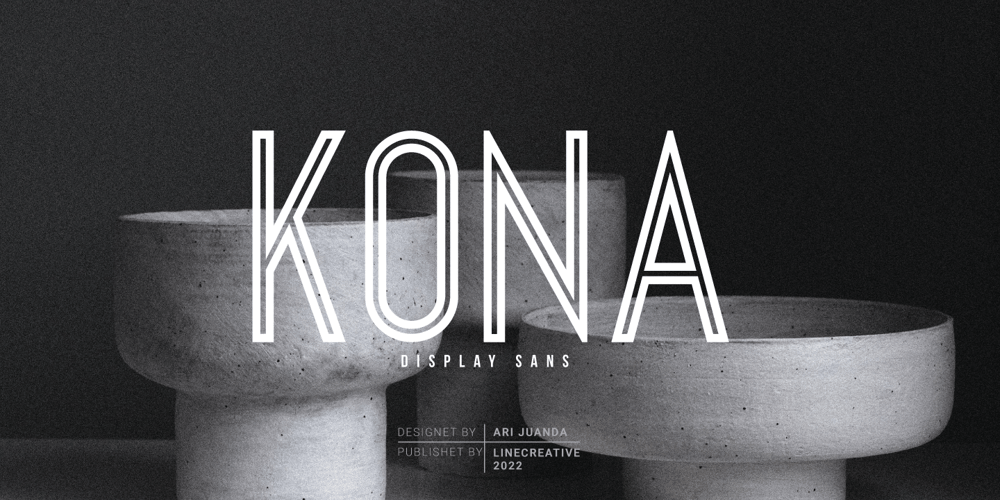
Kona
Kona font
Kona Font Family was designed by Ari Juanda and published by Linecreative. Kona contains 1 styles and family package options. Kona is a display font perfect for branding, homeware design, product packaging, magazine headers – or just perfect as display text against any background.